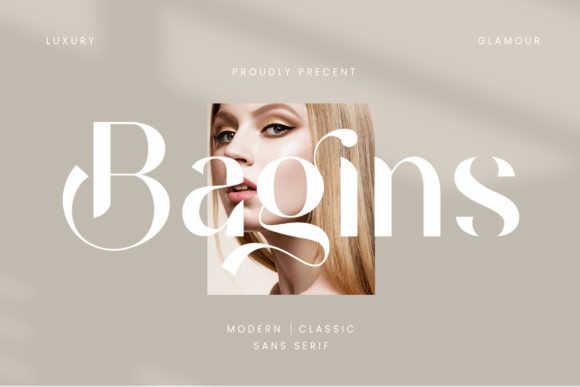
Are you tired of using the same old boring fonts in your projects? Look no further than Bagins Font, the perfect partner for your next design endeavor! Created by Slide Shoot, Bagins is a balanced, smooth, elegant, and stylish sans-serif font that exudes sophistication and elegance.
But what sets Bagins apart from other fonts on the market? Its stylish alternations and ligatures, for one. These unique features make Bagins stand out from the crowd and give your projects an extra touch of creativity.
Whether you're working on a website, branding project, or any other type of design, Bagins has got you covered. Its versatility and eye-catching style make it the perfect choice for any project.